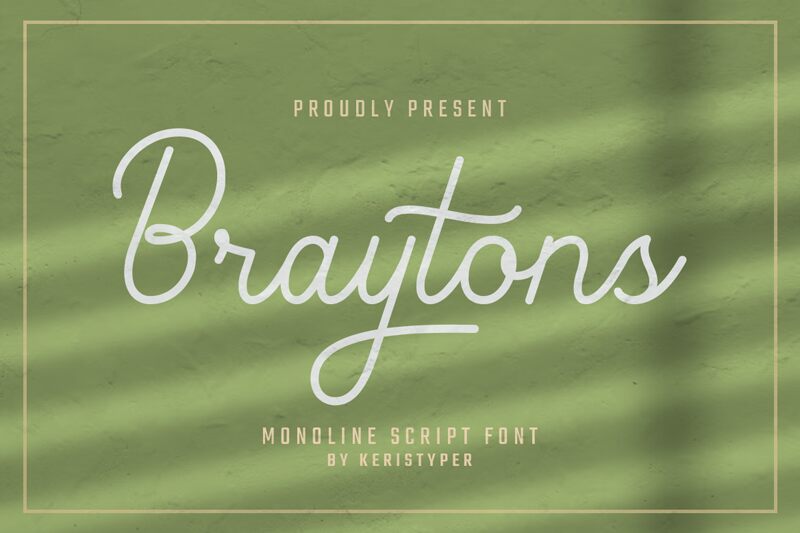
Braytons font by Tezar Tantular is a free handwritten font for personal use that doesn’t hold you back. Based on a monoline structure, letters are perfectly balanced and flowing creating a modern calligraphy design in a casual and harmonious fashion. This approach makes it perfect for contemporary projects and a large variety of styles that demand both modern appeal and the feel of a correct personality.
The elegance and inviting character of this font make it great for logotypes, headers, t-shirts, signage, and visual identity projects that look for a connection to visitors and readers. Text in Braytons is also legible and easy to read in both digital and printed media such as magazines, posters, and websites.